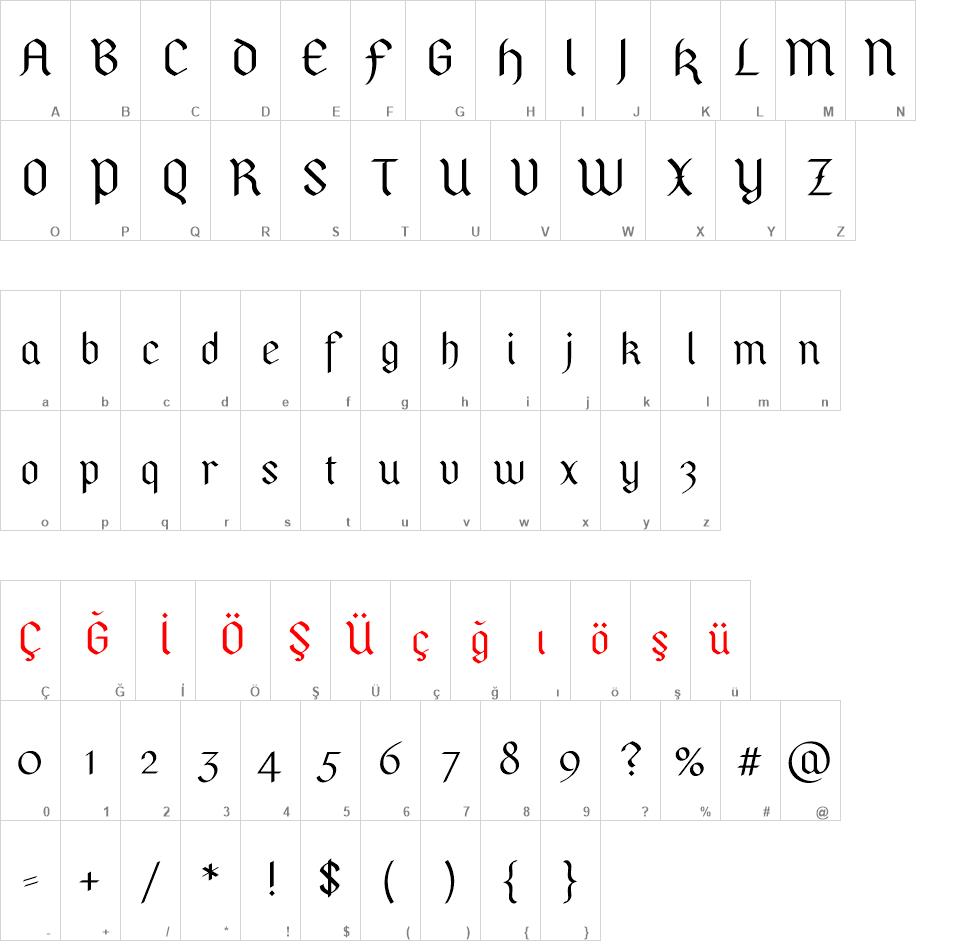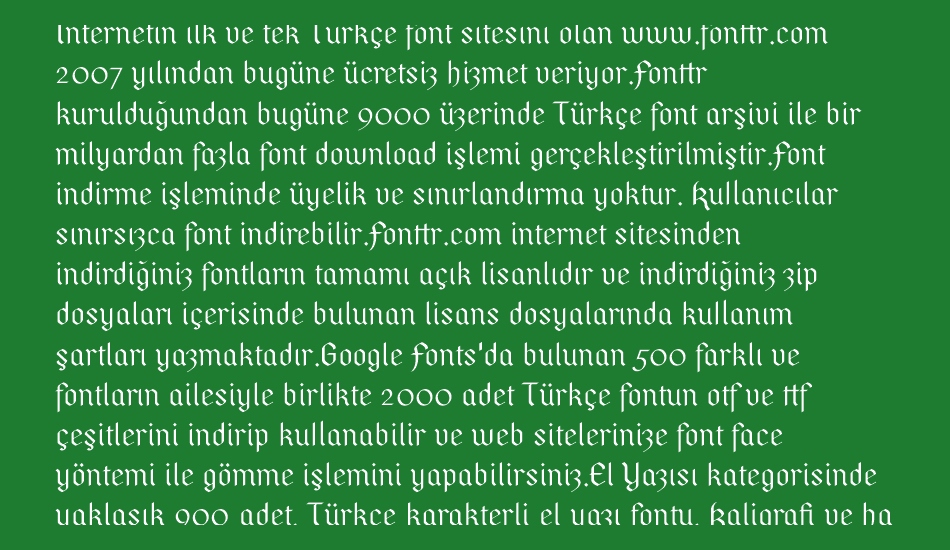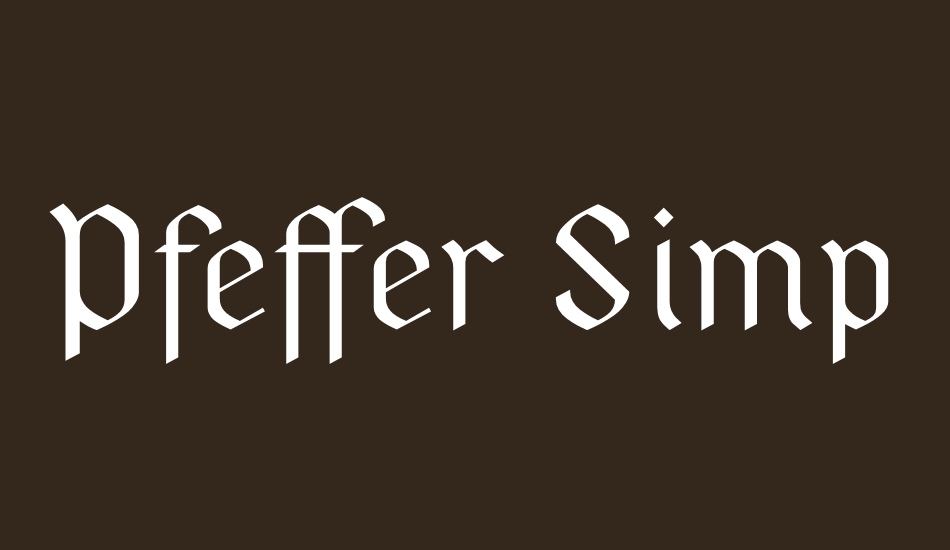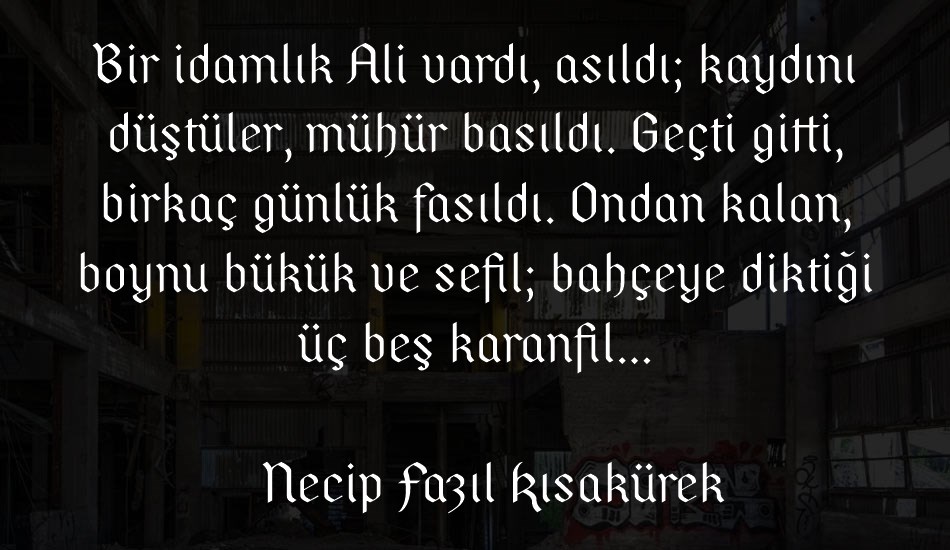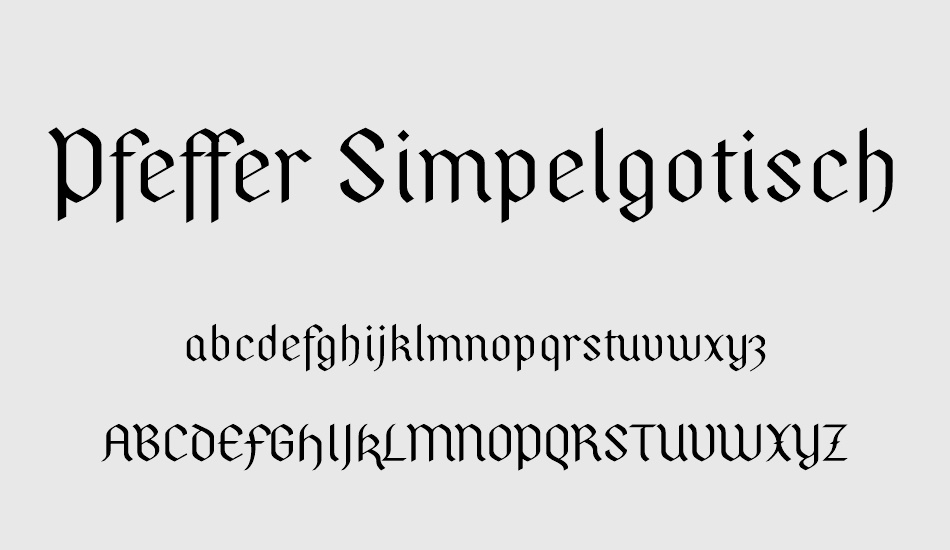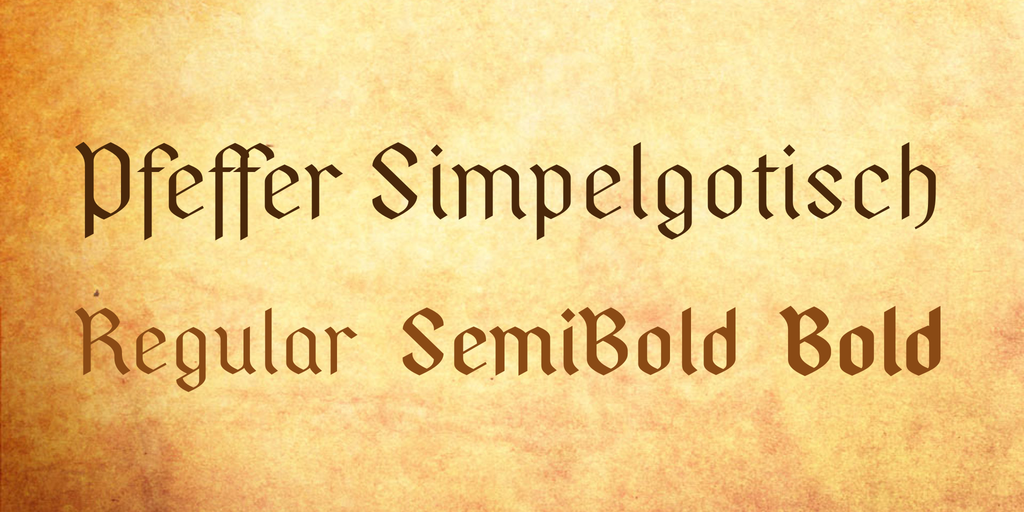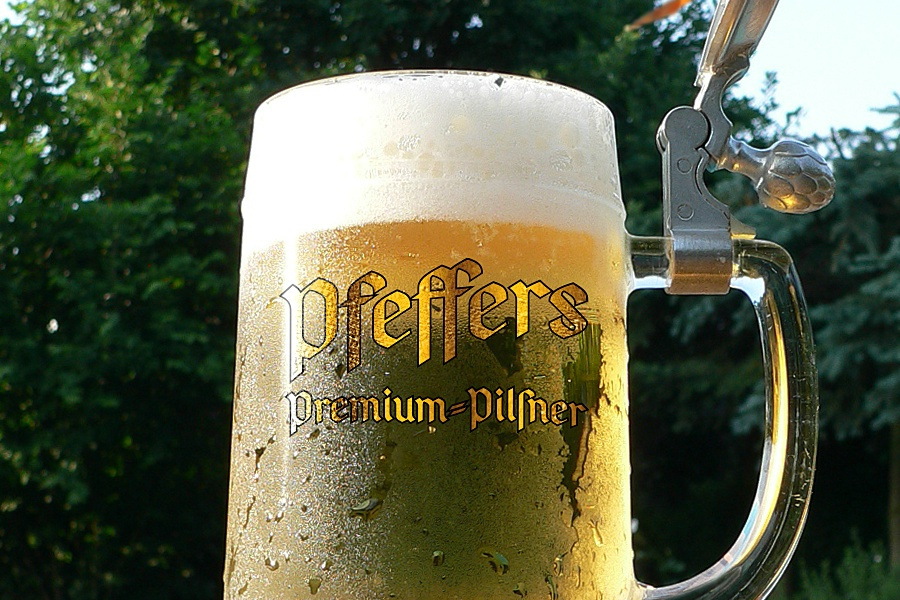
Pfeffer Simpelgotisch font
PFEFFER SIMPELGOTISCH is a particularly simple variant of the textura?—?that blackletter scripture which, starting from the 11th century with the advent of the Gothic style, had evolved from the Carolingian minuscule via the Gothic minuscule. The prevalent typeface of an age roughly re?ects the era’s architecture: The Carolingian minuscule’s roundings correlate to the Romanesque round arches, while the textura’s letters are as peaked and as upright as Gothic architecture. Sans-serif on the contrary breathes the spirit of our concrete age, and antiqua is apparently to stand for anything in between, from Renaissance to Classicism. Following this ?nding, the pointed arch is the essential stylistic feature of Pfeffer Simpelgotisch, which for the rest is quite unornamental.